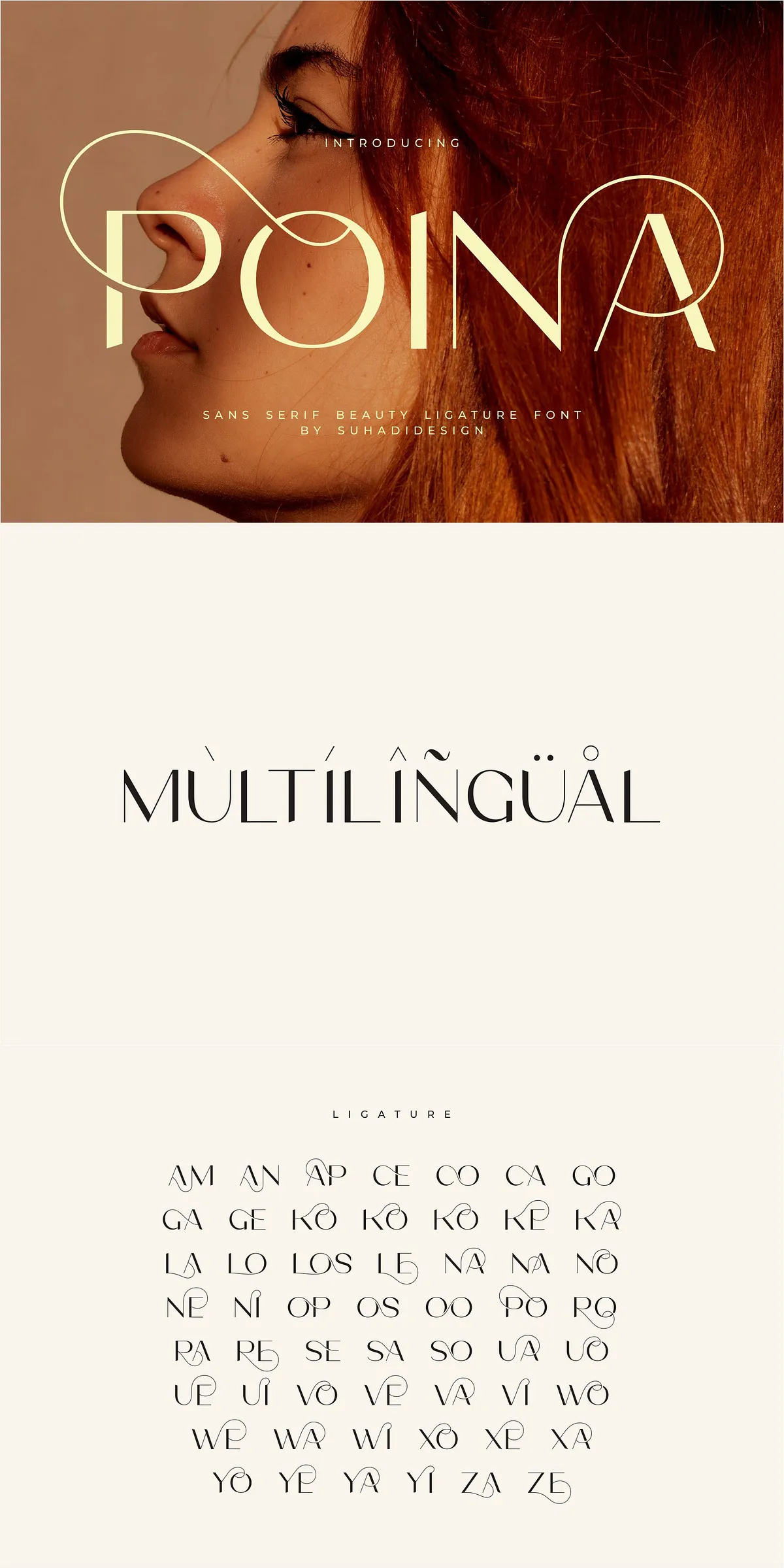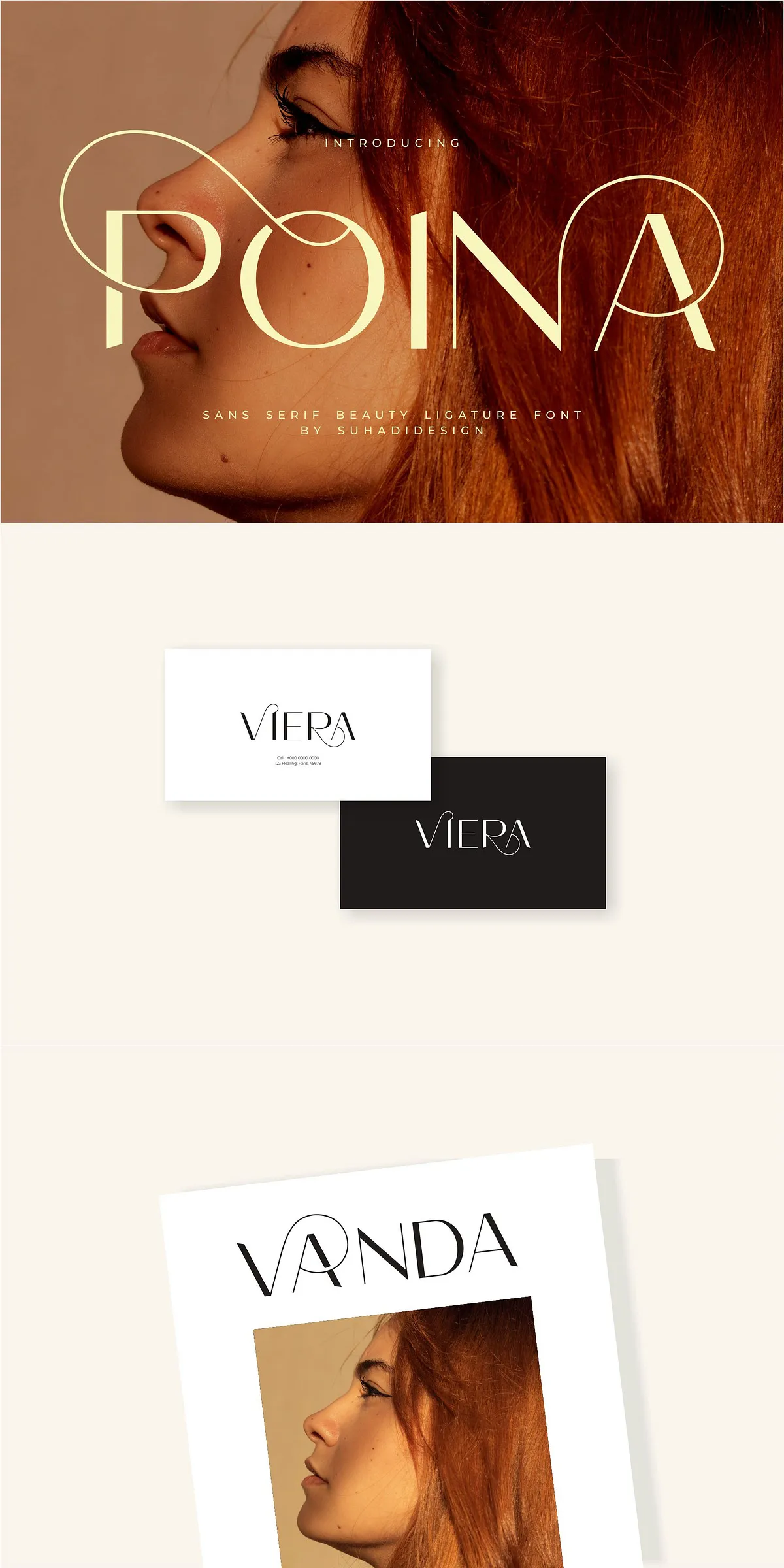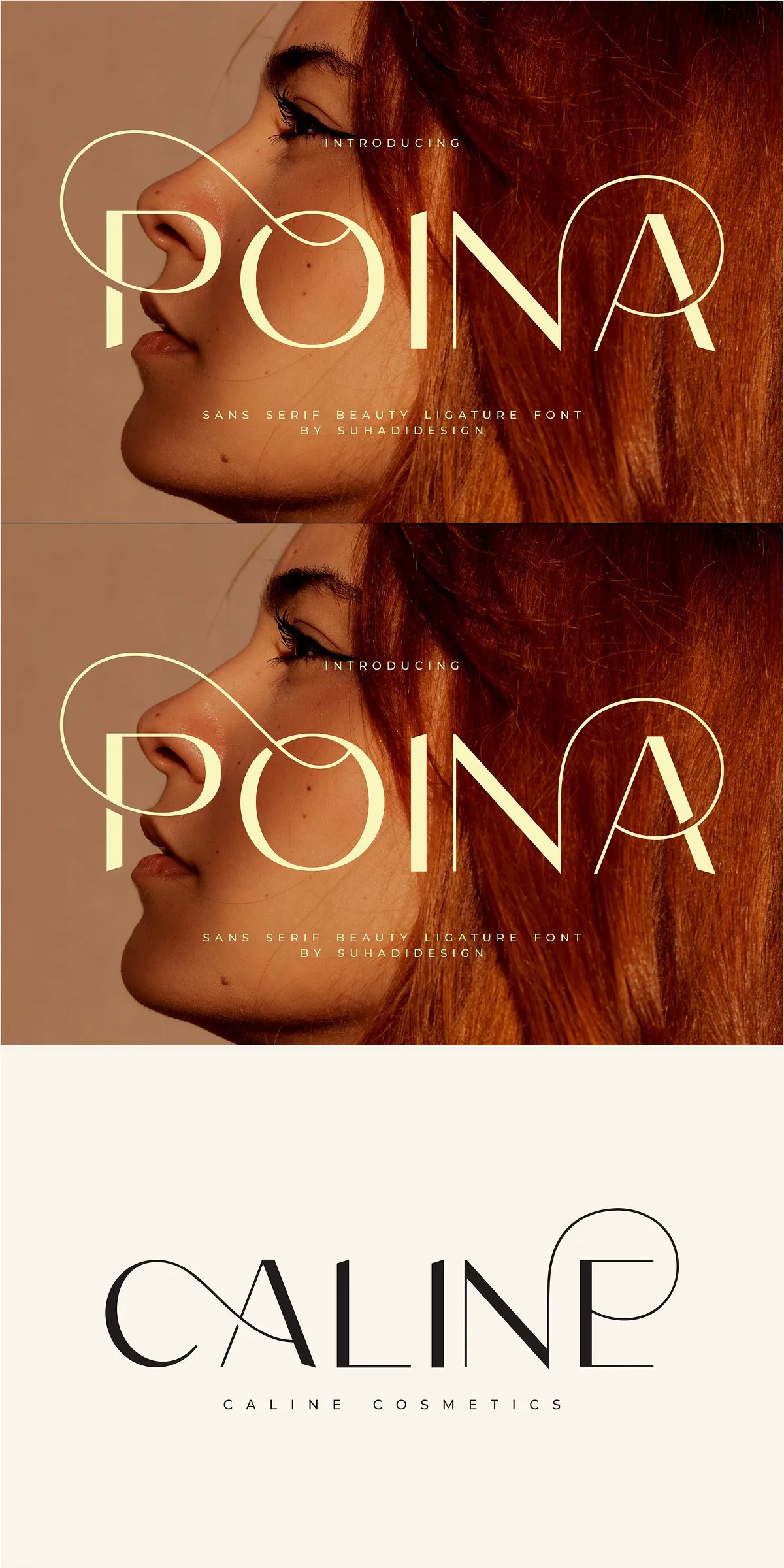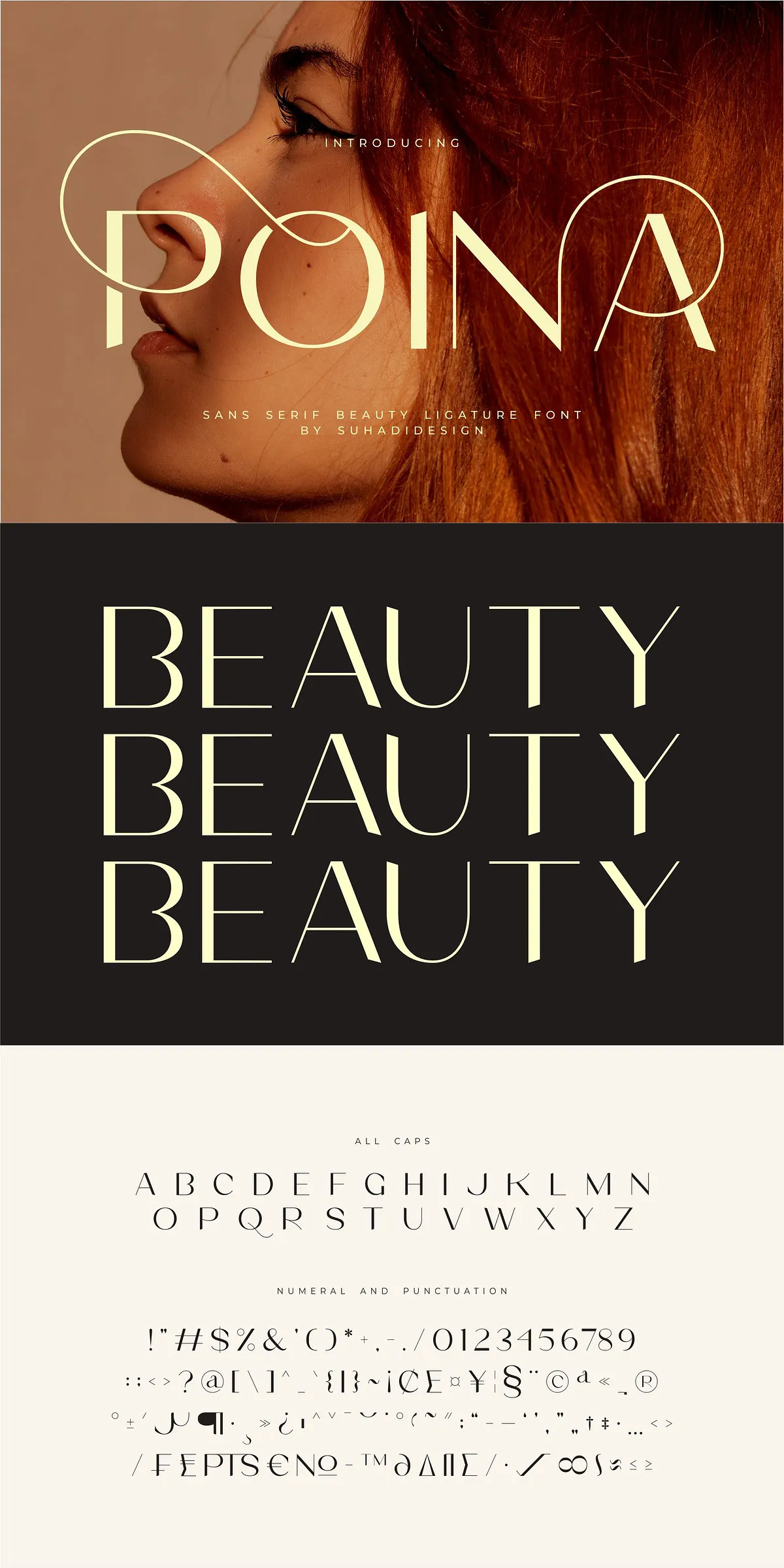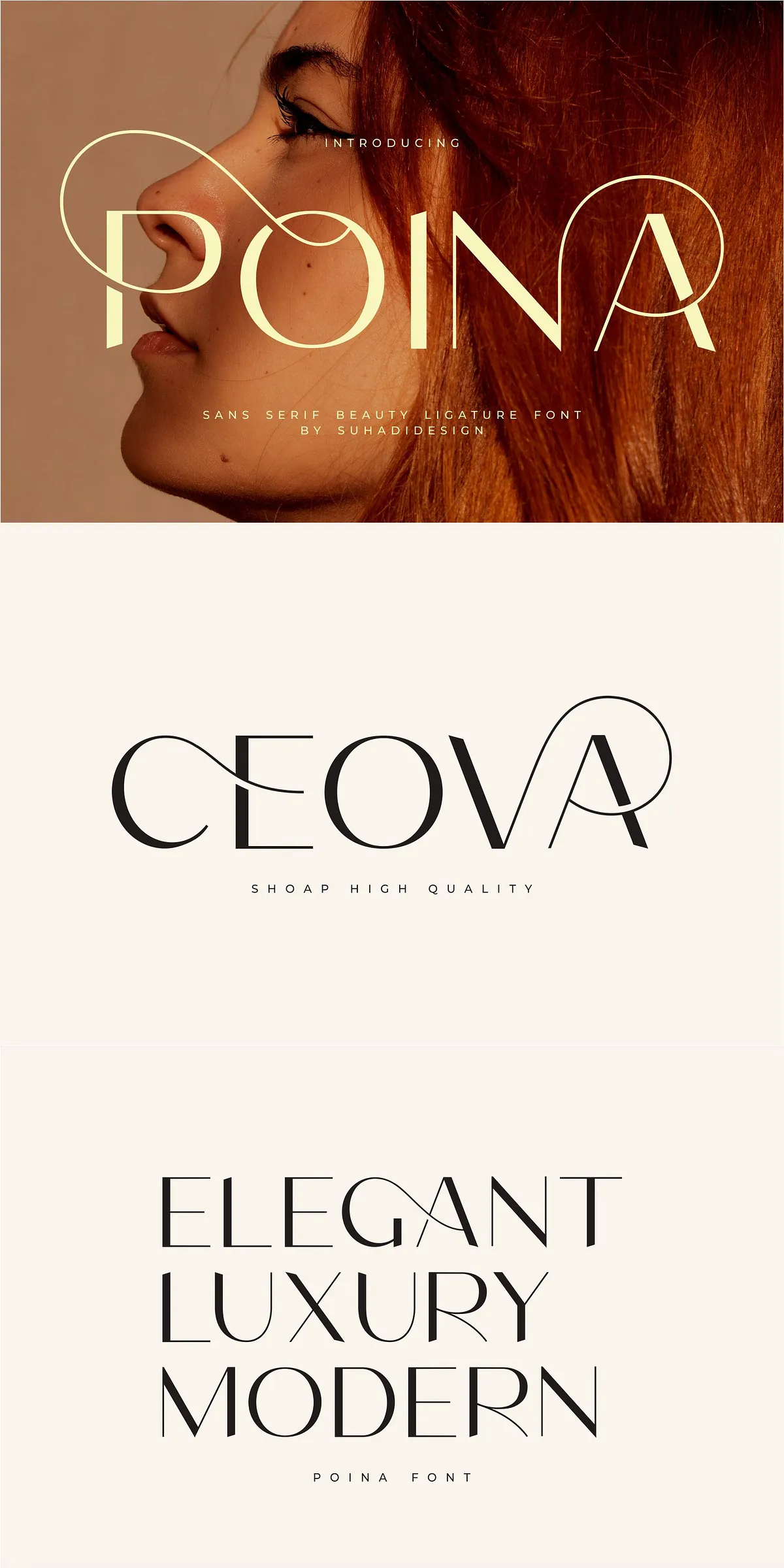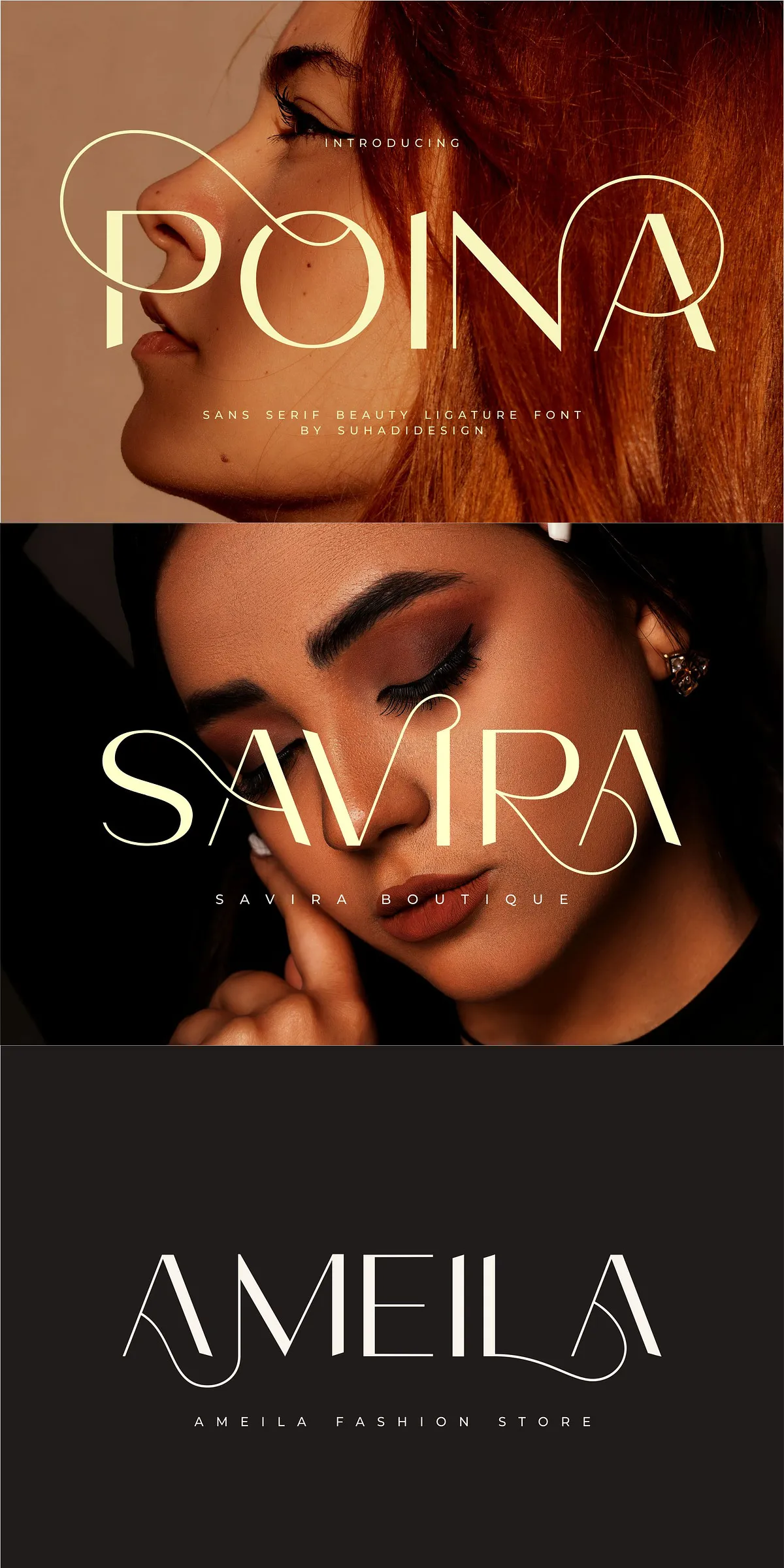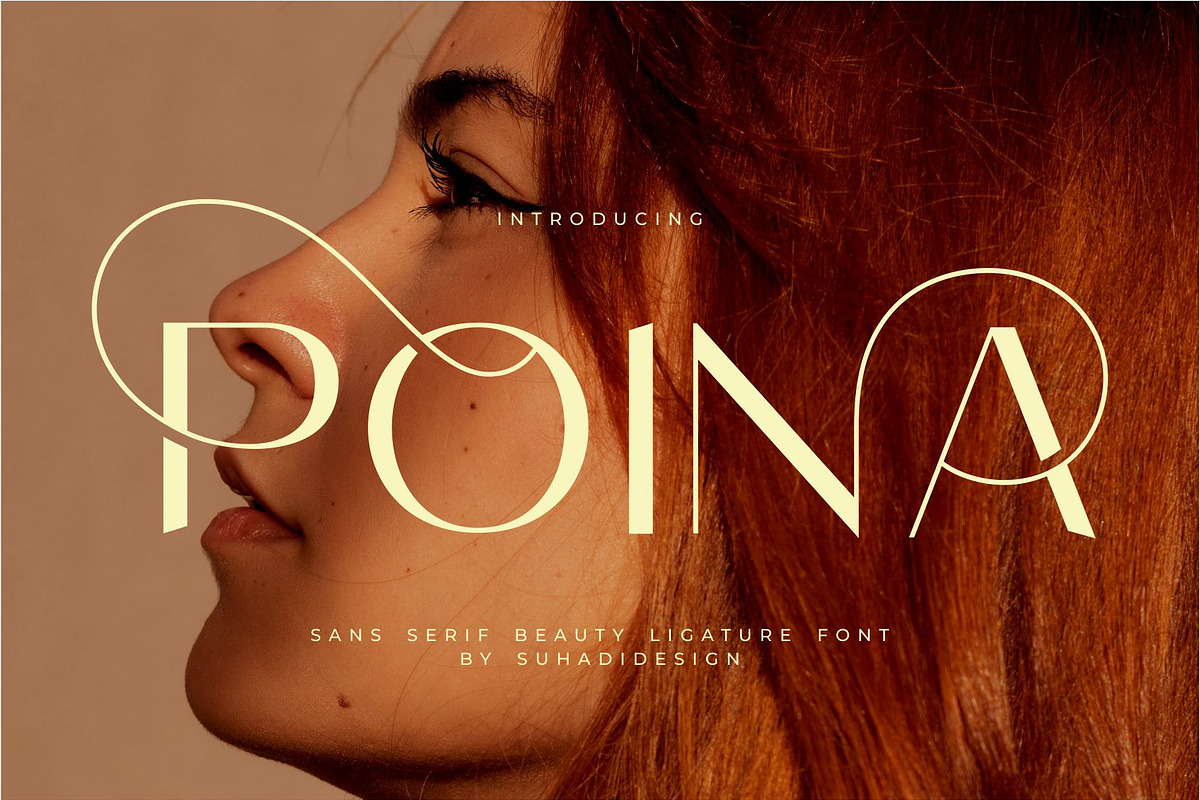
Step into a new era of refined typography with Poina — a striking, modern sans-serif font crafted for designers who demand elegance, precision, and visual impact. Designed for the most discerning creative minds, Poina redefines what a beauty-focused font can be: bold yet delicate, sleek yet expressive, classic yet refreshingly contemporary.
Whether you’re building a luxury cosmetics brand, designing a high-end magazine layout, crafting an exclusive event invitation, or developing a sophisticated wordmark, Poina delivers the perfection your project deserves. Its clean, geometric structure and subtle curve refinement ensure a refined presence that commands attention — without overpowering.
Advanced Ligature System – Where Typography Meets Artistry
What makes Poina truly exceptional is its intelligent ligature system. This isn’t just a font with random stylistic alternates — it’s a living typographic language. Poina automatically connects characters in seamless flowing sequences, eliminating awkward gaps and creating a sense of motion and harmony.
Each ligature is hand-designed to maintain visual balance, ensuring smooth transitions between letters like:
- “A” + “M” → “AM” ligature
- “S” + “T” → “ST” flourish
- “T” + “Y” → “TY” elegant joint
These subtle details amplify the font’s sophistication, transforming ordinary text into a visual narrative that whispers luxury and attention to detail.
Universal Design, Global Reach – Built for Multilingual Excellence
Poina isn’t just beautiful — it’s built for real-world versatility. With comprehensive multilingual support, this font is ready for international audiences, including:
Where Beauty Meets Design: Perfect for High-End Projects
Poina is not just a font — it’s a design statement. Use it to craft unforgettable identities across:
- Luxury Branding & Logos – Build unforgettable wordmarks that exude prestige and finesse.
- Beauty & Cosmetics – Perfect for skincare, makeup, and wellness product labels and packaging.
- Magazines & High-End Publications – Elevate article titles, editorial headers, and feature layouts.
- Social Media & Digital Campaigns – Stand out on Instagram, Pinterest, and YouTube thumbnails.
- Business Cards & Invitations – Impress clients with professional, elegant stationery.
- Newspapers & Editorial Design – Add a touch of modern refinement to premium content.
Why Designers Are Choosing Poina: The Power of Simplicity and Sophistication
With Poina, you’re not just choosing a font — you’re choosing a philosophy. It’s minimal in form, but maximal in impact. The all-caps style creates a bold, confident presence, while the ligature system adds a layer of subtle artistry.